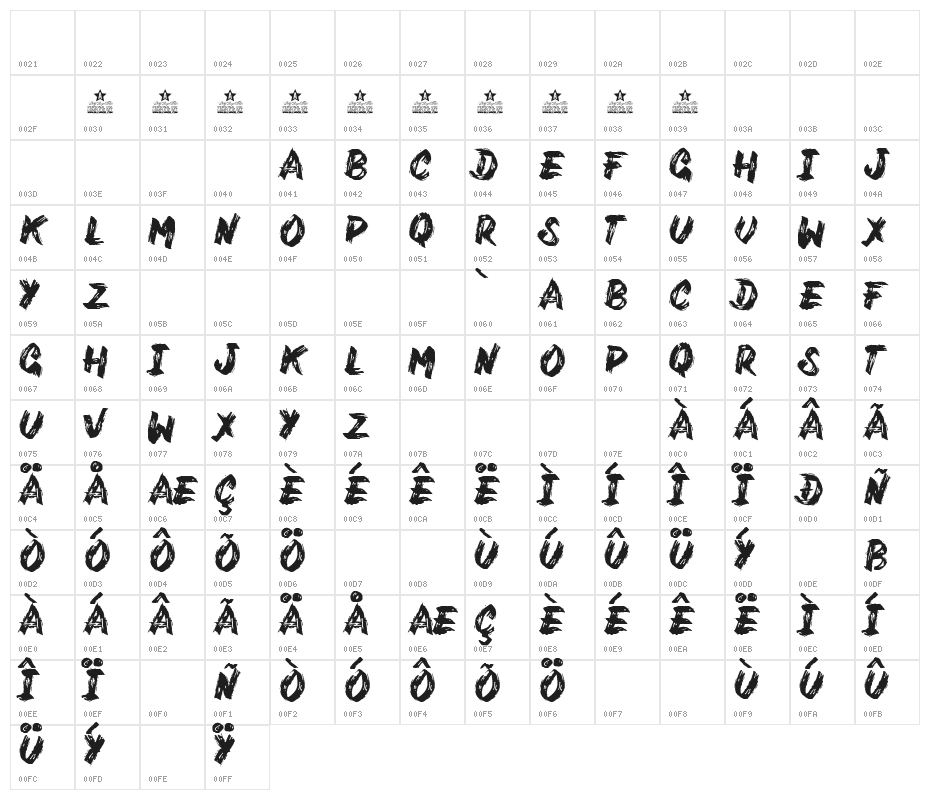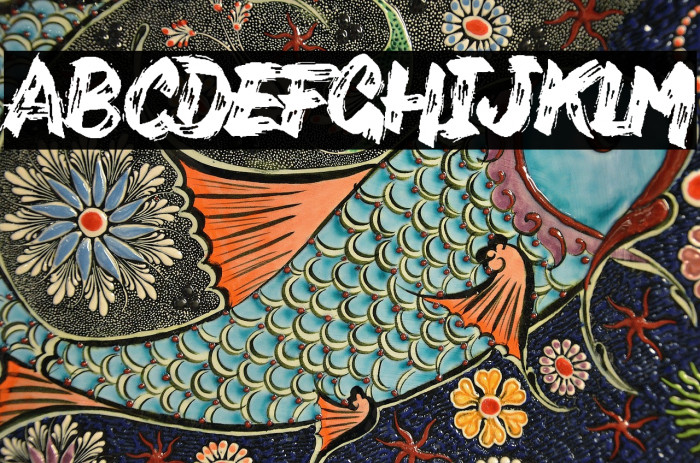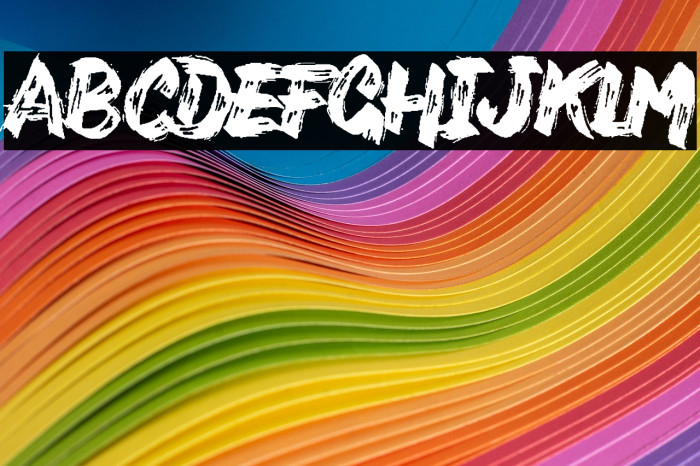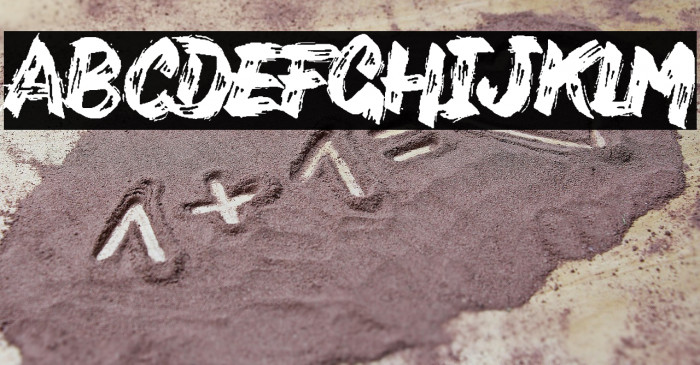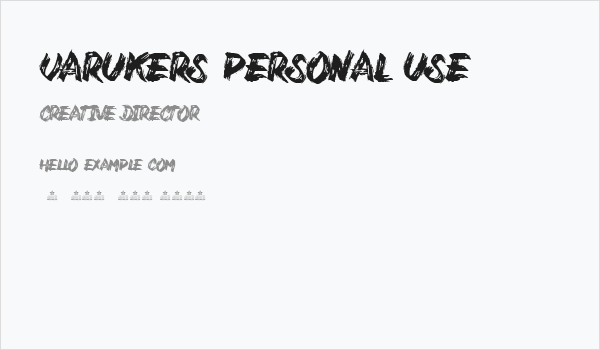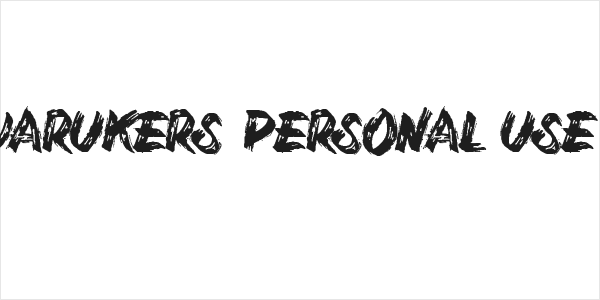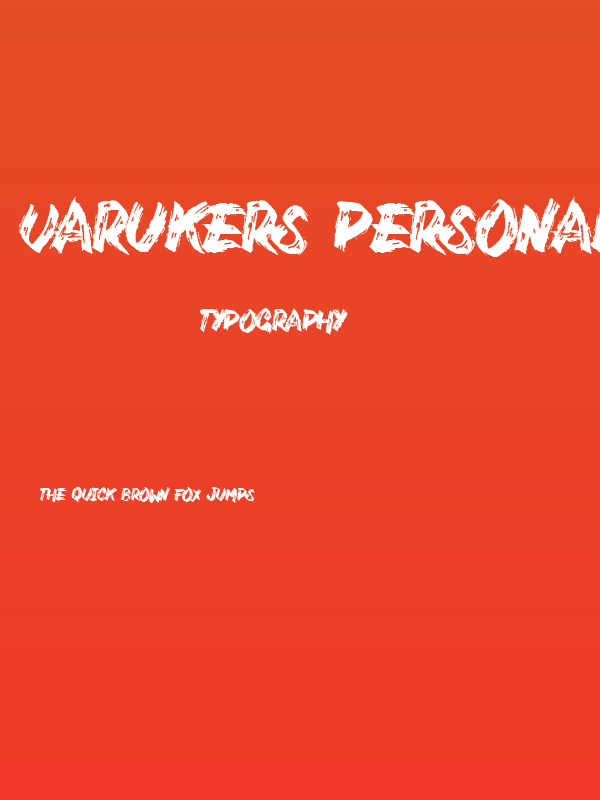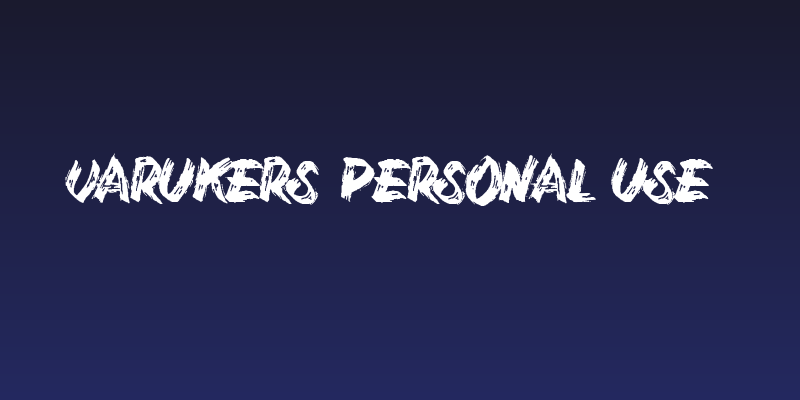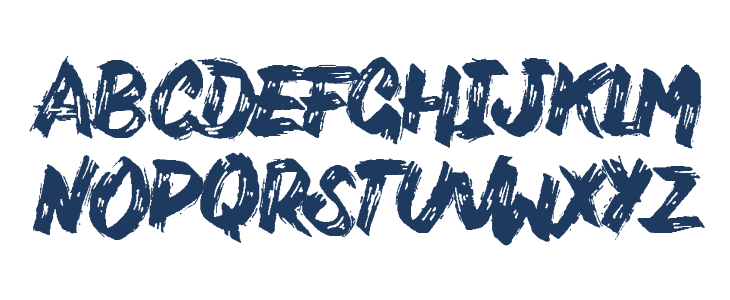
Varukers Personal Use Font
Varukers Personal Use Description
This font exhibits a bold, brush-stroke style that conveys a sense of raw energy and dynamism. The characters are heavily textured, with irregular edges that give an impression of being hand-painted. This style is reminiscent of street art or graffiti, making it stand out with its unique, artistic flair. The uppercase letters are particularly striking, with each character displaying a distinct personality while maintaining a cohesive look throughout the set. The font's rugged appearance suggests a rebellious or edgy tone, suitable for projects that aim to capture attention and convey a strong message.
| Overall Style | Modern, Artistic |
| Proposed Projects | Ideal for album covers, posters, streetwear branding, and any design needing a bold, artistic touch. |